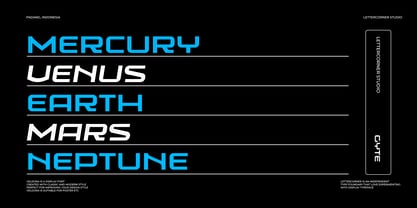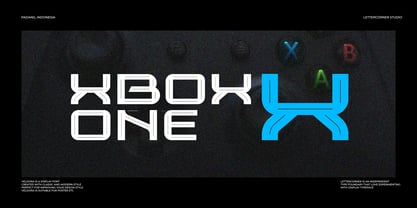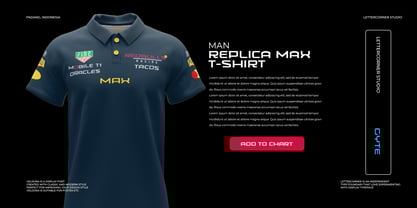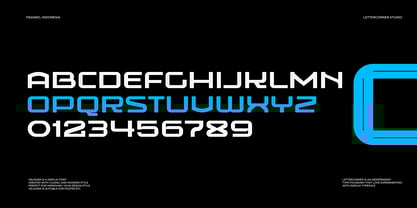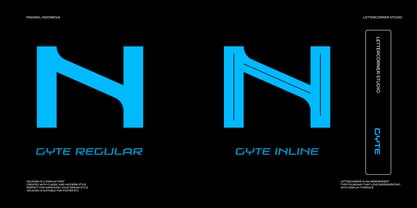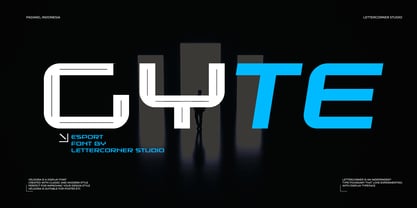
Gyte
The Gyte Font Family was designed by Muhammad Afif Ersya and published by Mevstory Studio. Gyte contains 4 styles and family package options. More about this family
Gyte is a modern and futuristic font that combines sleek, stylish lines with a touch of boldness. Its design is perfect for projects that want a contemporary and cutting-edge look, making it ideal for tech-related graphics, trendy branding, and eye-catching headlines. The font’s clean and geometric shapes give it a futuristic feel, while still being easy to read.